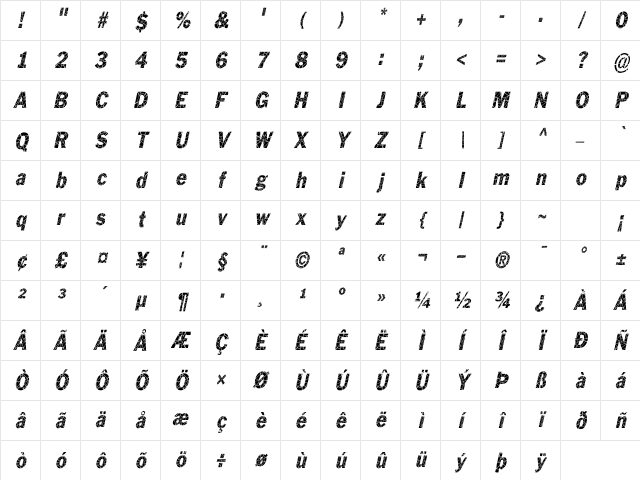
Philadelphia-Cracked-Condensed Italic
Philadelphia-Cracked-Condensed Family
Philadelphia-Cracked-Condensed Italic
Complete Philadelphia-Cracked-Condensed Italic glyph index. Displaying only characters natively supported by Philadelphia-Cracked-Condensed Italic font.
Design Context for Philadelphia-Cracked-Condensed
Philadelphia-Cracked-Condensed is a composed and adaptable typeface that performs quietly and consistently across a wide range of design contexts. The slanted form adds forward momentum and visual energy. Its narrow stance lets it pack a punch even in space-constrained designs.
Pro Tip: Use Philadelphia-Cracked-Condensed for emphasis, pull quotes, and subheadings where its slanted energy can add rhythm to the layout.